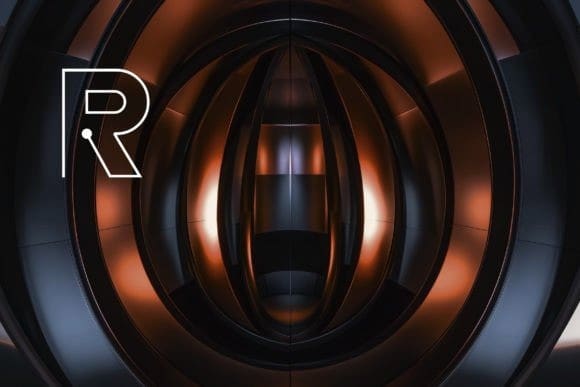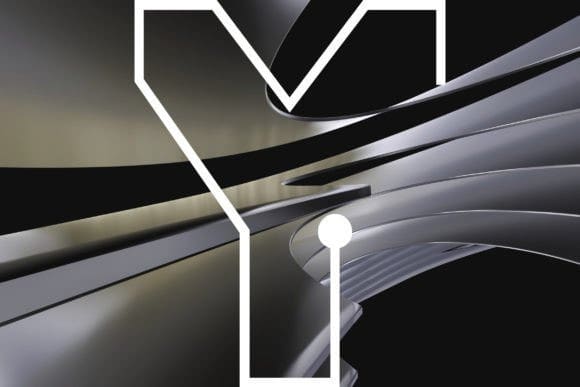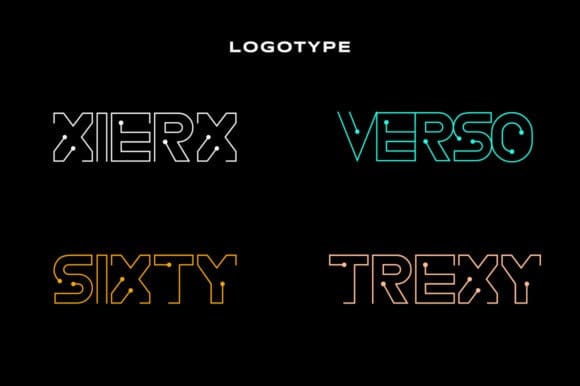
Exwayer Font
Exwayer Font is a cool and techno looking display font. It is ideal for writing web designs, business cards, or pretty much anything else that requires a unique touch.
XYR or exwayer is futuristic thin line font.
– UPPERCASE LETTER
Great in use for logo design, title, any kind of technology category